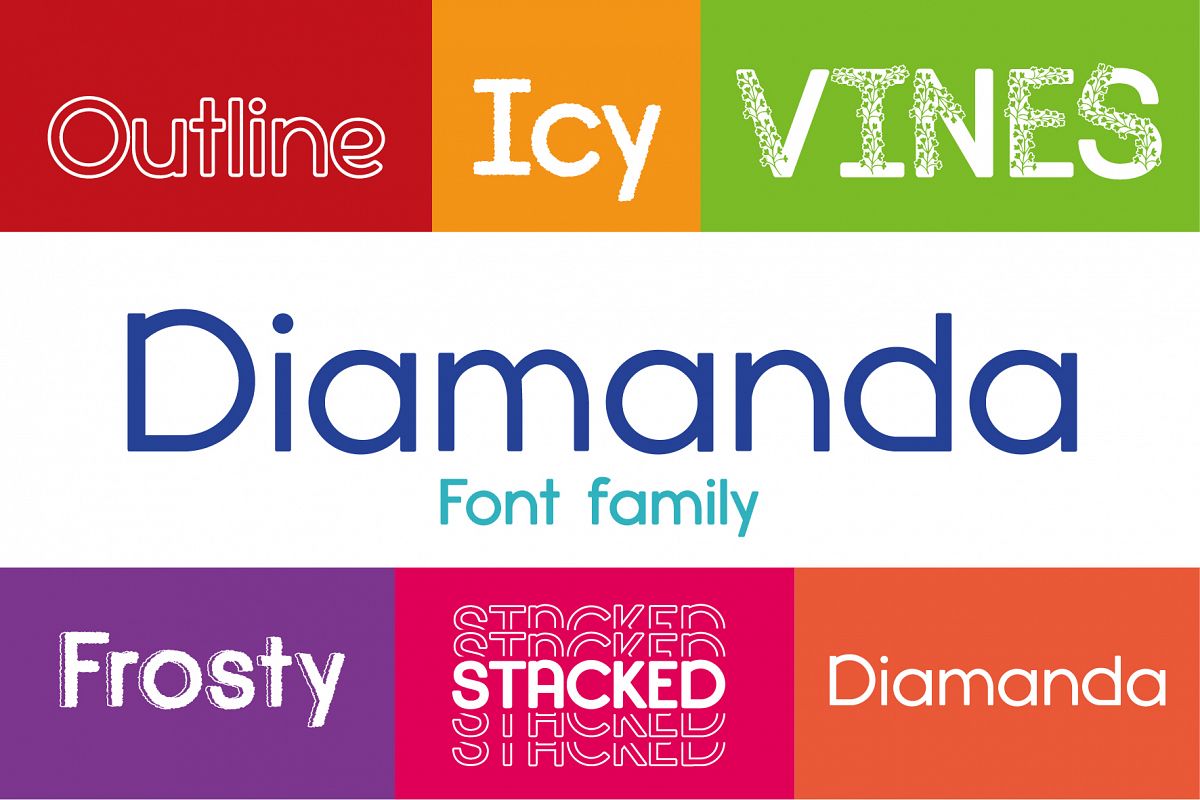
Diamanda Font Family Bundle includes 6 crafting fonts
The Diamanda Font family includes 6 fonts:
*Diamanda in light, regular & Bold
*Diamanda Vines
*Diamanda Outline
*Diamanda Stacked
*Diamanda Stacked Solid
*Diamanda Icy in light, regular & Bold
*Diamanda Frosty